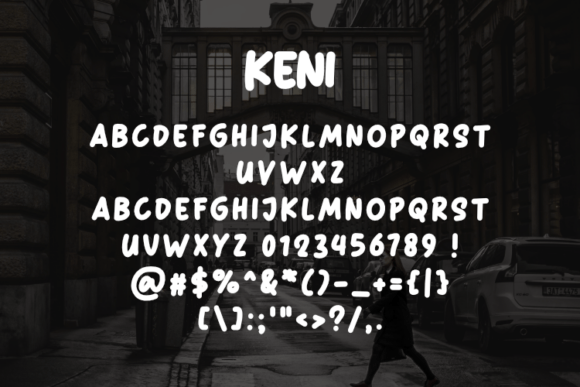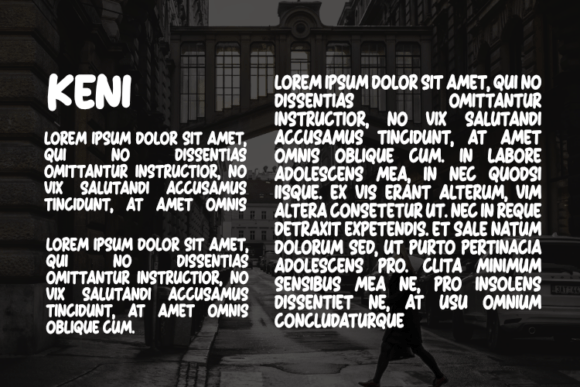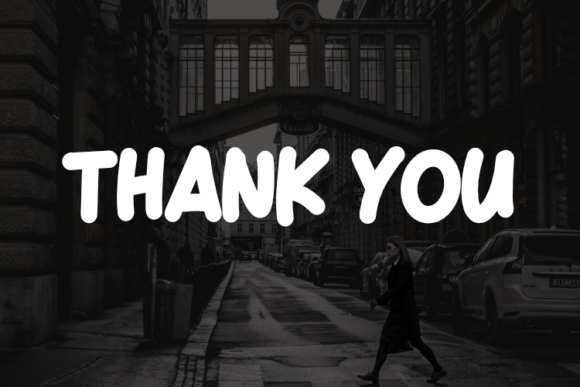
Introduction to Keni Font
As a designer, have you ever found yourself struggling to find the perfect font for your creative project, only to settle for something that just doesn’t quite fit? The search for the perfect font can be a daunting task, especially when you’re working on a deadline. But what if I told you that there’s a font that’s not only stylish, but also incredibly versatile and easy to use?
Keni Font is a modern and elegant typeface that’s designed to be flexible and easy to read across a wide range of media. With its .otf (OpenType Font) file format, this font offers superior cross-platform compatibility, making it an ideal choice for all design software and office applications, including Adobe Creative Suite, Microsoft Office, and other design software.
Honest Review: Keni Font
As a designer, I’m always on the lookout for high-quality design resources to elevate my creative projects. Keni Font is one of the latest additions to my collection, and I’m excited to share my honest review with you.
Firstly, let’s talk about what works well. ✨ The Keni Font is a beautifully crafted sans-serif font that’s perfect for modern designs. It’s highly legible and versatile, making it suitable for a wide range of creative projects. I particularly love the transparent background option, which gives me the flexibility to use it on any background without worrying about compatibility issues.
- High-quality font design
However, there are a few limitations to consider. ⚠️ The font family is relatively small, with only a few weights and styles available. This might be a drawback for designers who prefer a more extensive font library. Additionally, the font’s uniqueness might make it harder to find matching font combinations.
Overall, I’m impressed with the Keni Font, and I think it’s a valuable addition to any designer’s toolkit. Its high-quality design and transparent background option make it a great choice for creative projects. With a bit more development, I think it has the potential to become a go-to font for designers worldwide.
Tips for Getting the Most Out of Keni Font
For best results, use Keni Font with a high-resolution image and a clear design concept. Experiment with different font sizes, colors, and arrangements to achieve a unique look.
Keni Font is ideal for creating visual content, such as social media graphics, infographics, and presentations. Its transparent background makes it easy to combine with other design elements.